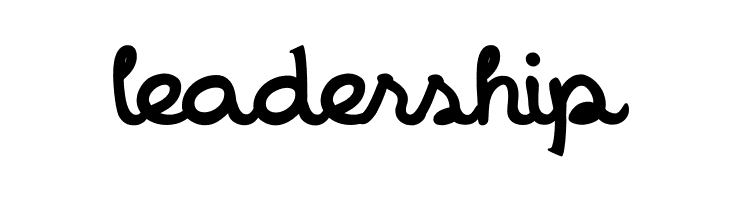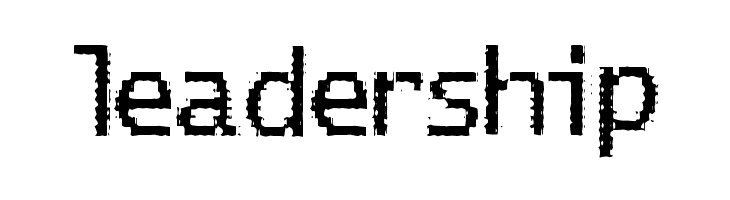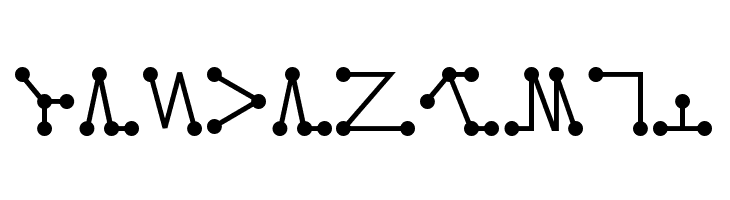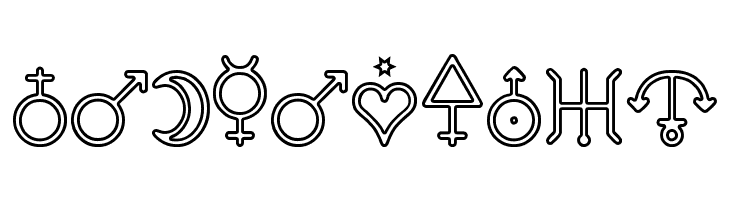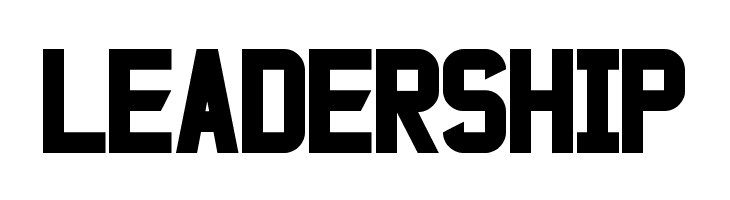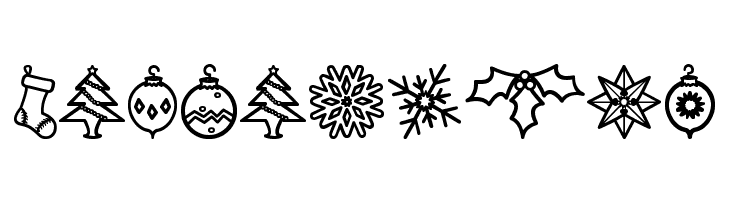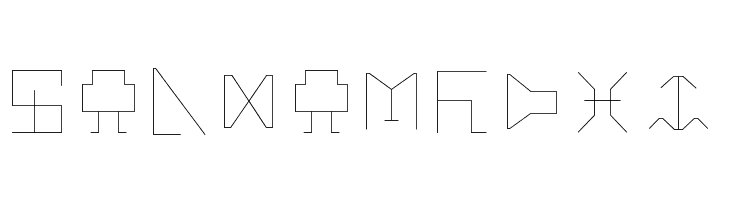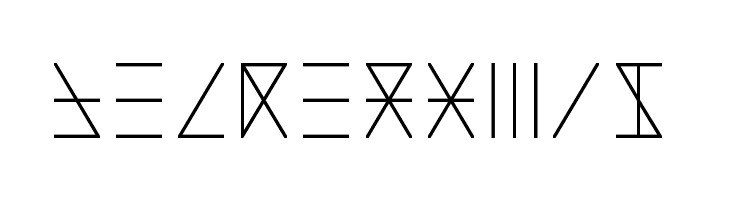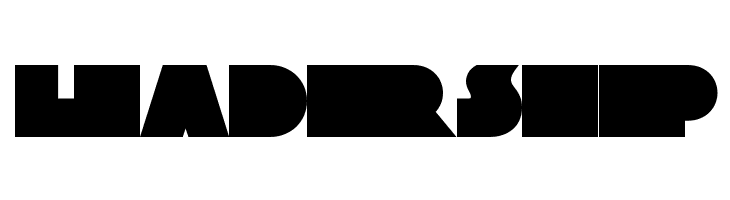
A dynamic, hand-drawn font with elongated strokes and a playful, modern style.
A playful, bold, and rounded handwritten font with a cursive-like flow.
A distressed, vintage-style font with a rugged, weathered appearance.
A modern, constellation-inspired font with a geometric and decorative style.
A collection of bold, clear astronomical symbols with a cosmic theme.
A bold, futuristic font with sharp, angular lines and a strong geometric structure.
A decorative font with Christmas-themed icons for festive projects.
A futuristic, geometric font with angular and abstract letterforms.
A geometric, rune-inspired decorative font with uniform line weight.
A bold, geometric font with strong circular and angular forms.